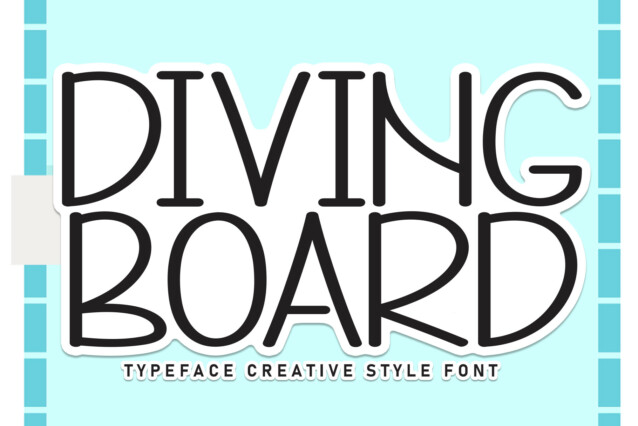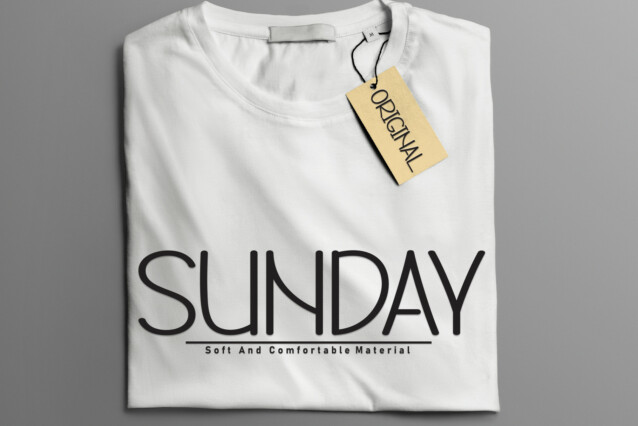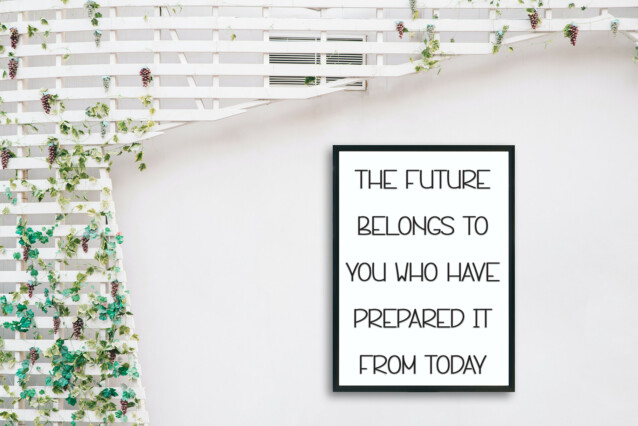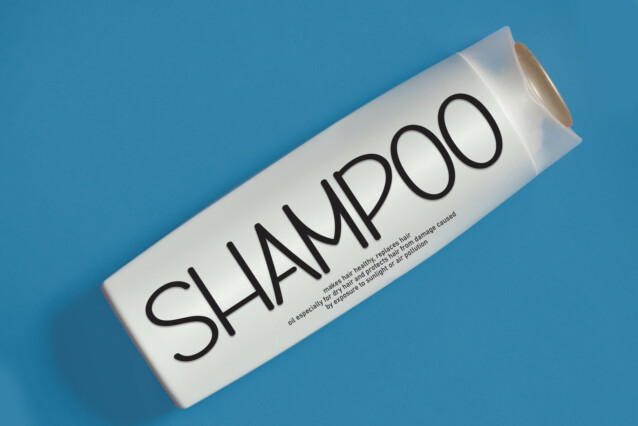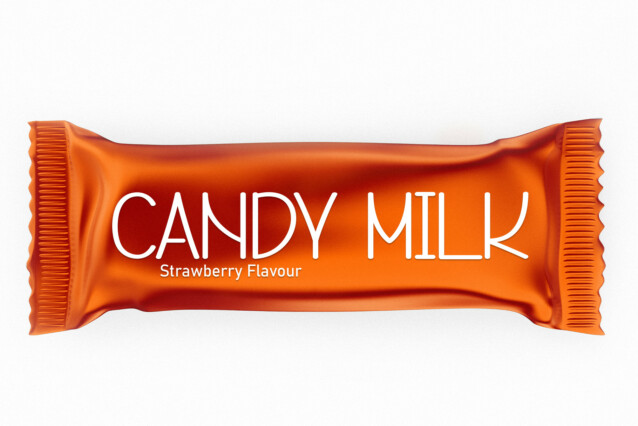
Diving Board Display Font
Diving Board Display Font is a sweet and friendly handwritten font. Its natural and unique style makes it incredibly fitting to a large pool of designs. The only limit is your imagination!